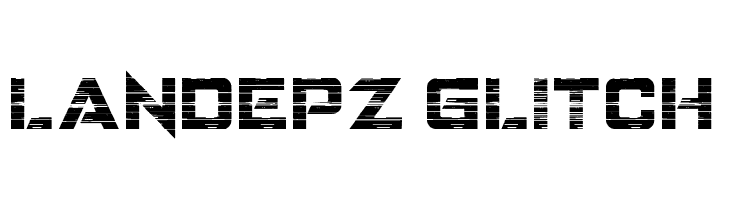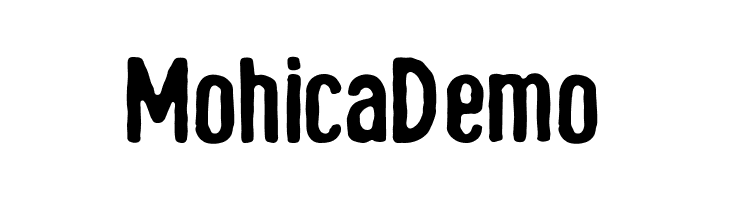
A bold, glitch-inspired font with a digital, fragmented aesthetic.
A bold, distressed font with a rugged, vintage texture.
A playful and elegant handwritten font with a whimsical flair.
A bold, distressed font with a vintage, textured appearance.
A classic serif font with sharp serifs and balanced proportions.
An elegant serif font with high contrast and refined details.
An artistic and edgy font with elongated serifs and dynamic curves.
A playful, bold handwritten font with rounded edges and a casual style.
A playful, hand-drawn font with rounded, smooth strokes and a whimsical style.
A playful, casual handwritten font with smooth, flowing lines.